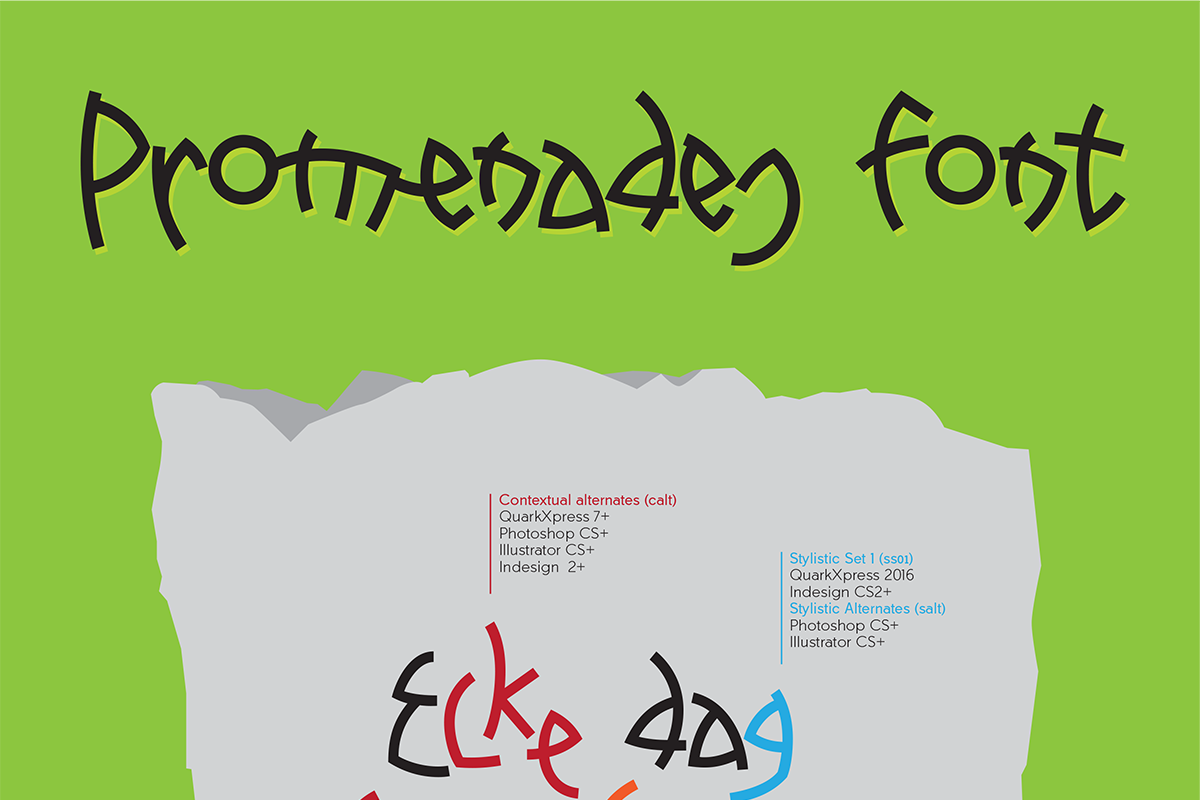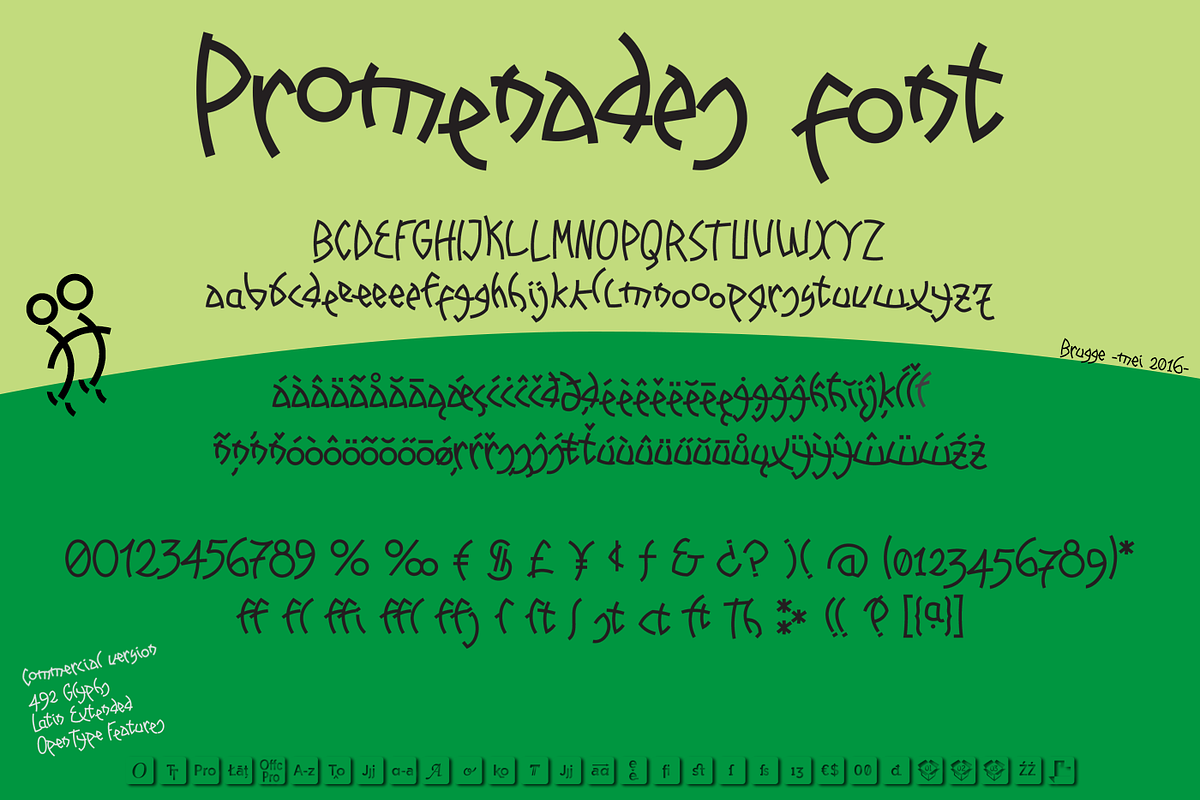
Promenades font
Promenades font by deFharo is a font selected for branding, posters, packaging, typography.
- • Typography includes several features for OpenType: ligatures, contextual alternates, 3 stylistic sets, contextual swashes and more...
- Promenades Regular
Why Promenades font is worth a look
Promenades font by deFharo fits naturally into Branding, posters, packaging, typography.